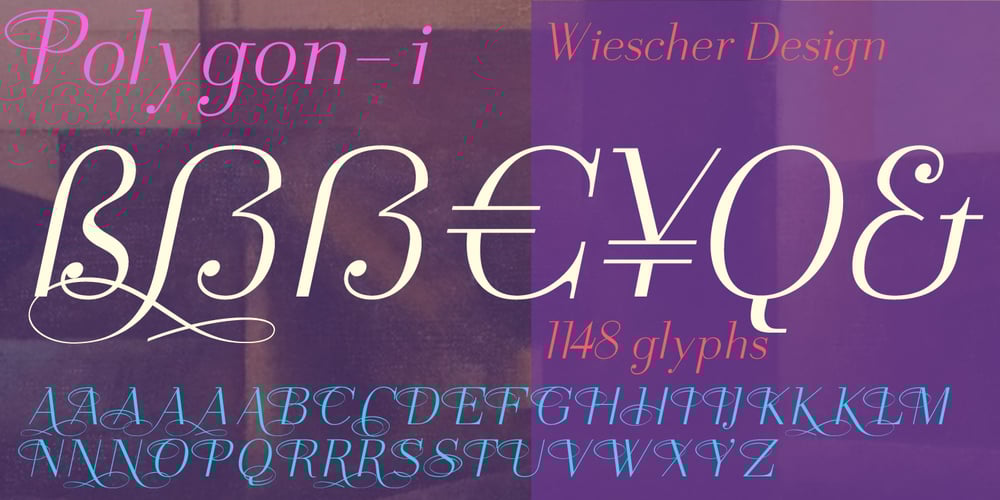
Polygon I Font Family was designed by Gert Wiescher and published by Wiescher Design. Polygon I contains 7 styles and family package options. Polygon are unique fonts with a modern character based on the rational thinking of the enlightenment with its classic forms and timeless elegance. This first installment will be followed by more extreme and by less extreme designs on the same design basics. You get many embellished characters in each font. The font has over 1100 glyphs, but you need to have Open-Type-Savvy software to use the font to its full extend. These fonts have been designed to work great as bodycopy, the heavier weights are meant to be used for smaller sized typesetting and the lighter ones should be used when the sizes get bigger. Enjoy!